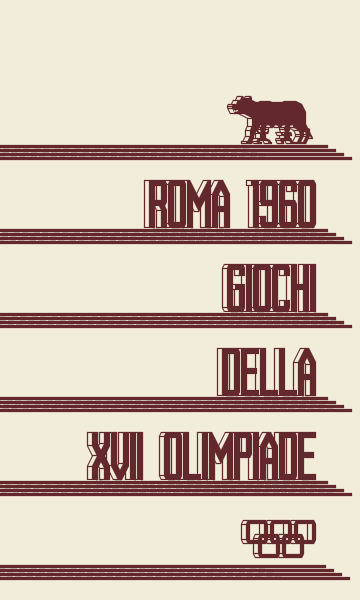
Is that a cow?
Clean and simple design recall the 1960 Summer Olympics games in Rome. The founders of Rome, Romulus and Remus suckled by a she-wolf, according to the legend, the symbol of the city. Nice touch. 10/10
Great tribute. The geometric Olympic rings are a sweet addition.
@aphoria: You should watch out: last time I called a she-wolf a cow, she very nearly bit my head off!
I love this one. Type is sculpture.
I do believe we have a winner. :-)
@will.i.ૐ & Frodo: thanks for pointing out the history and iconography of the she-wolf with Romulus and Remus.
Below is one of the original posters of the XVII Olympic Games, where the she-wolf silhouette I used in Podio comes from.
very classical and distinctive. i do wonder if making a lc without the steps would make it more versatile, although perhaps not rendering the sample text as you envision. still, very nice.
As concerning your suggestion, the steps are used to emphasize the rhetoric and propaganda sports usually are associated with, so they are definitely a strong part of the design (...and besides it's where the font name comes from!).
This is a good font & one of many of my fonts in my system. It rules!
For anybody wondering, lowercase O is olympic rings, and lowercase L  the she-wolf